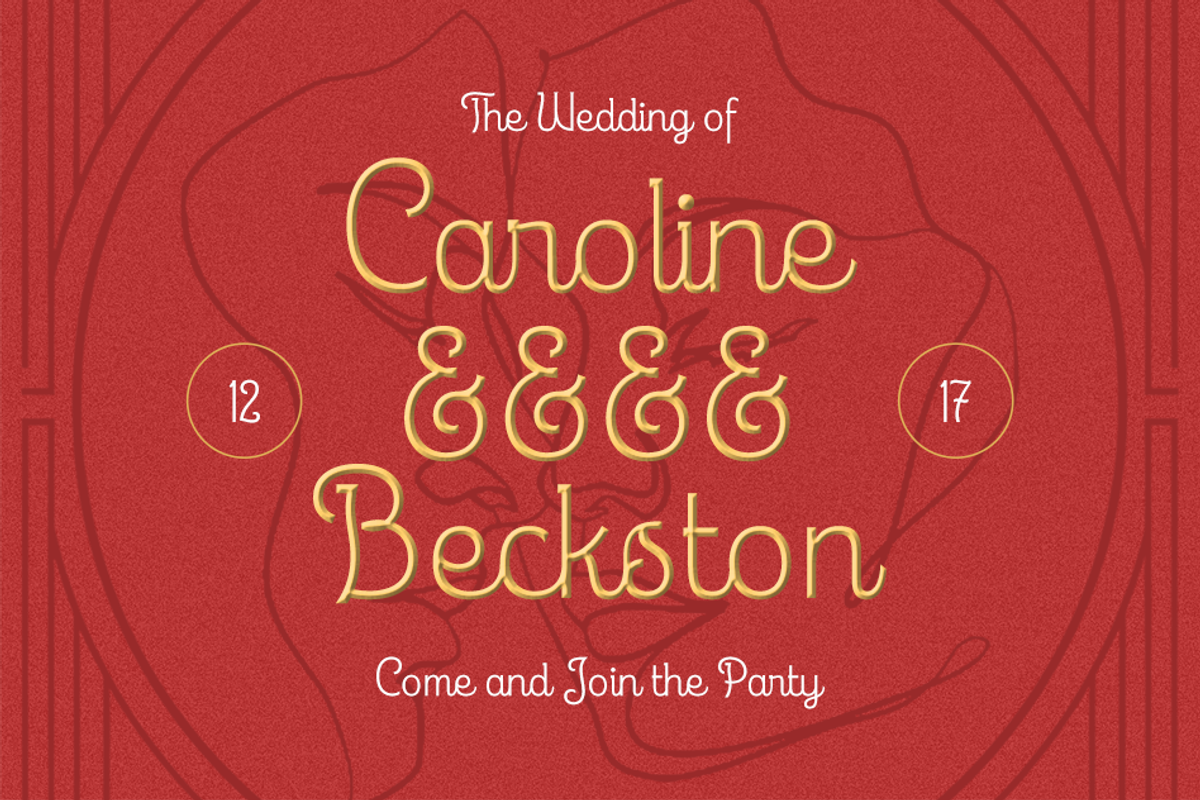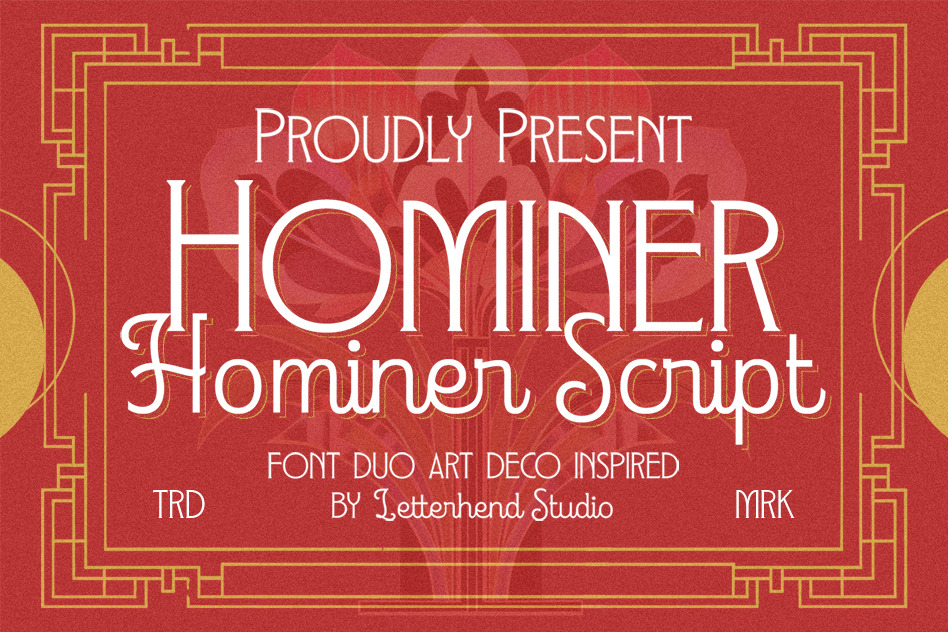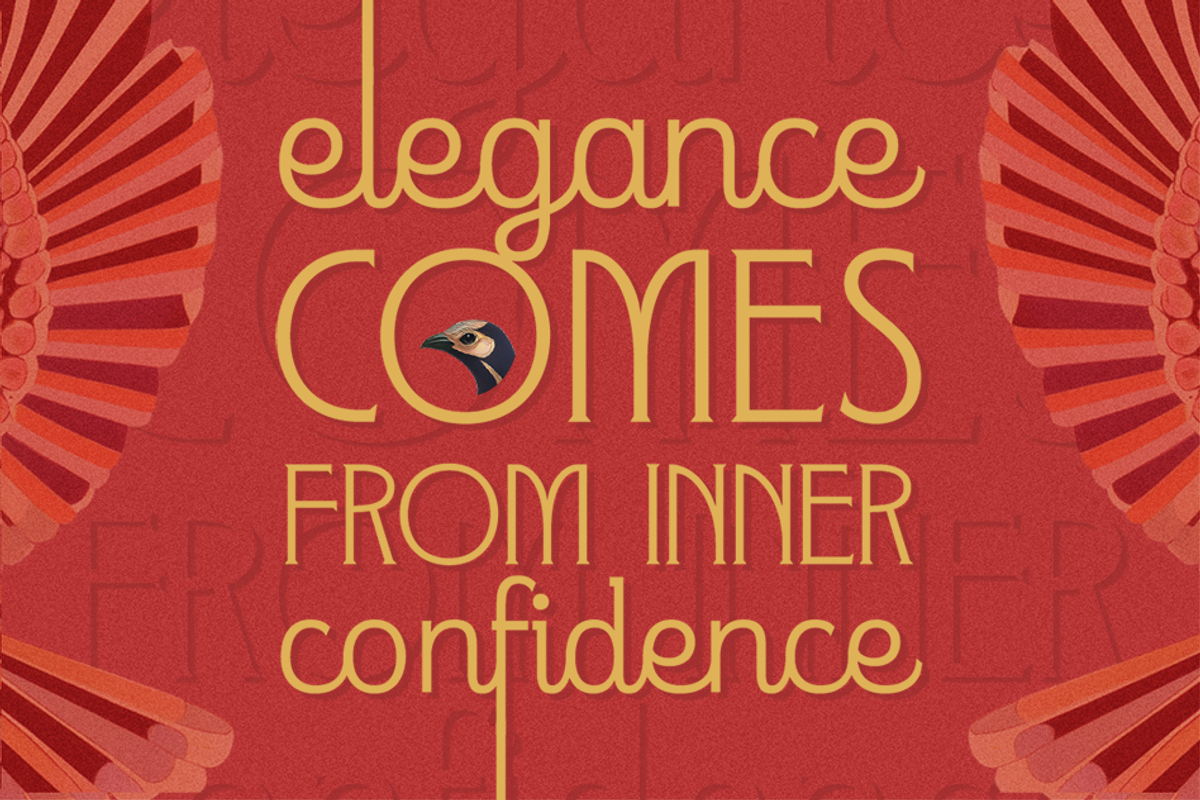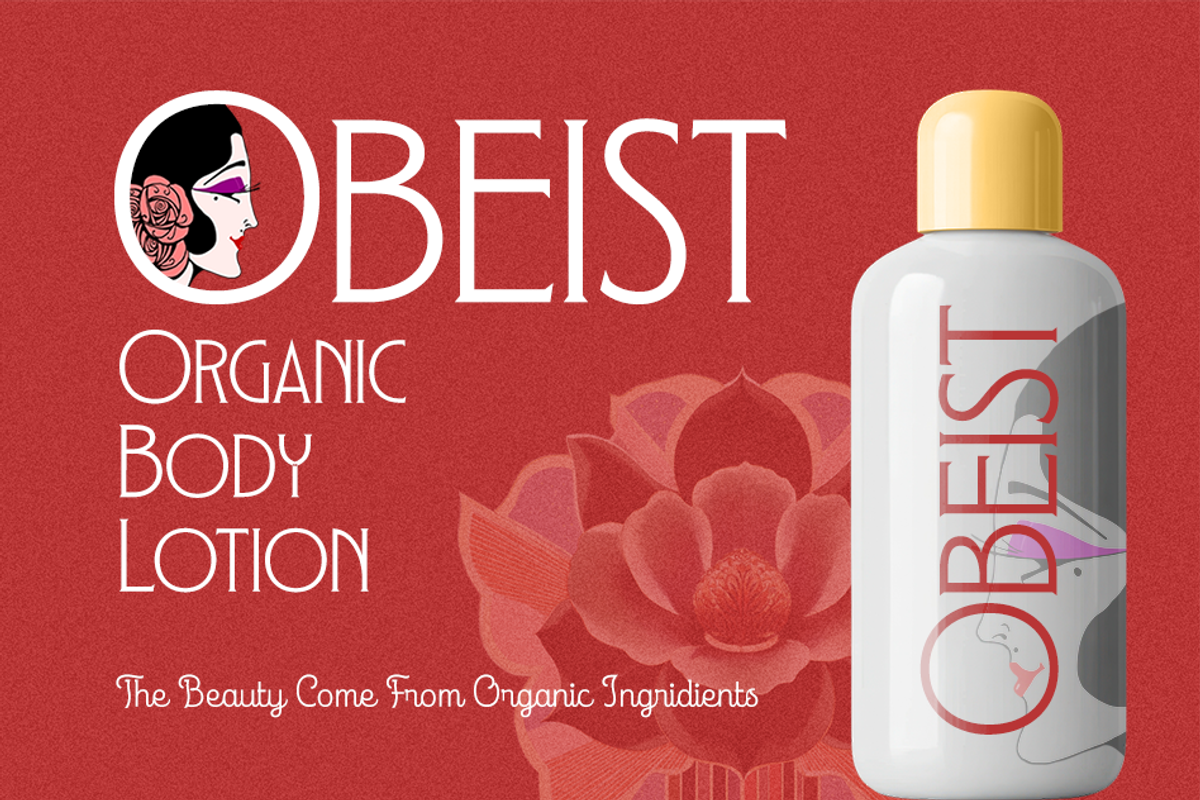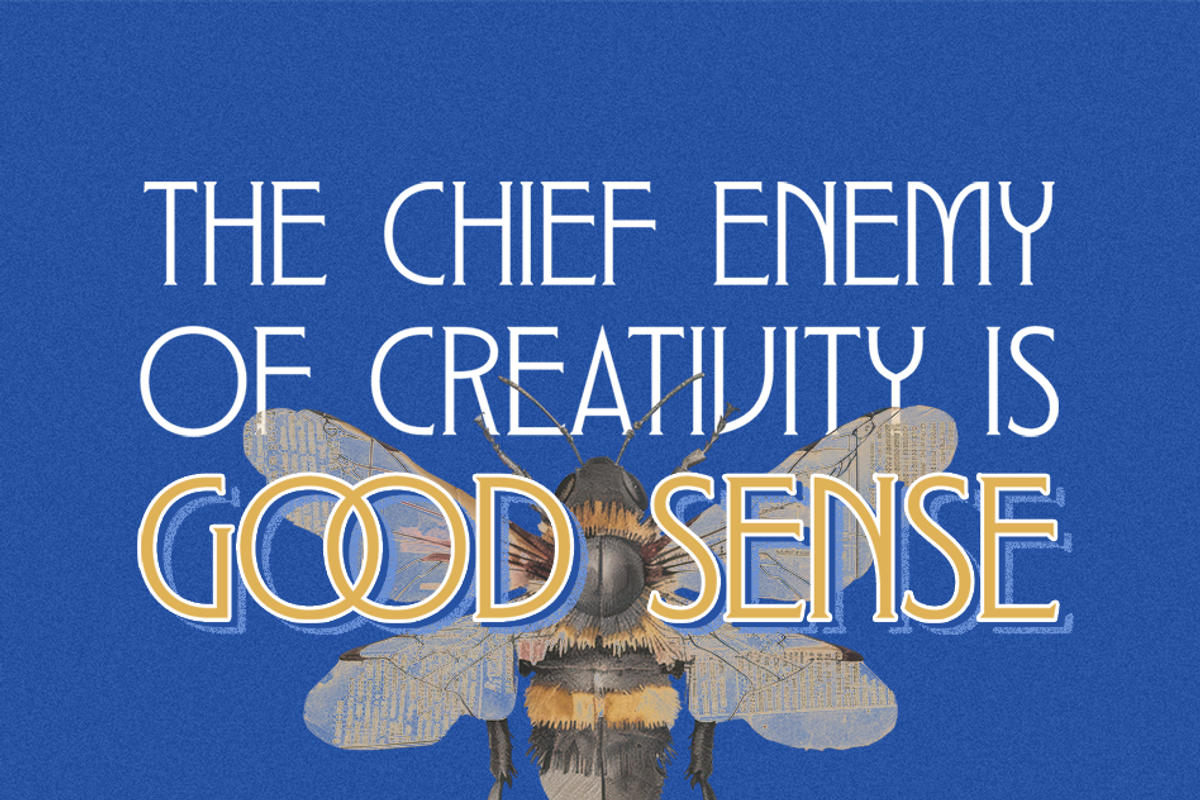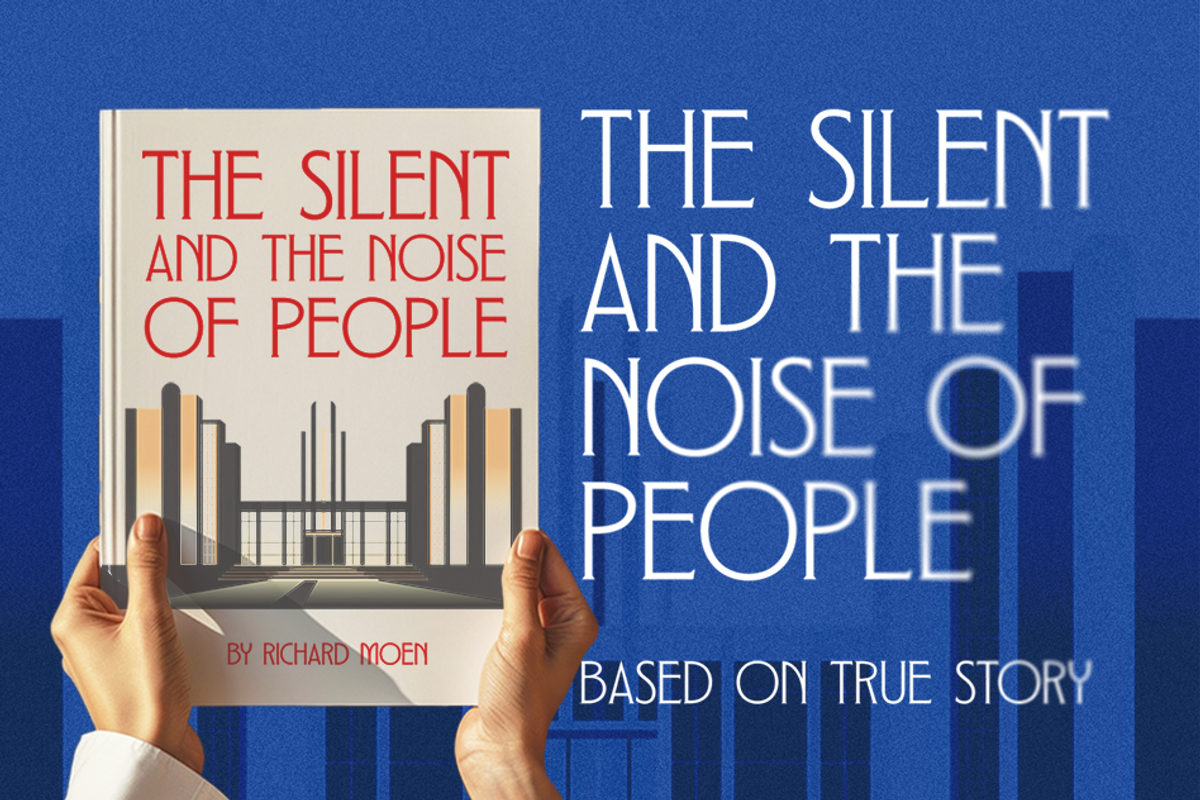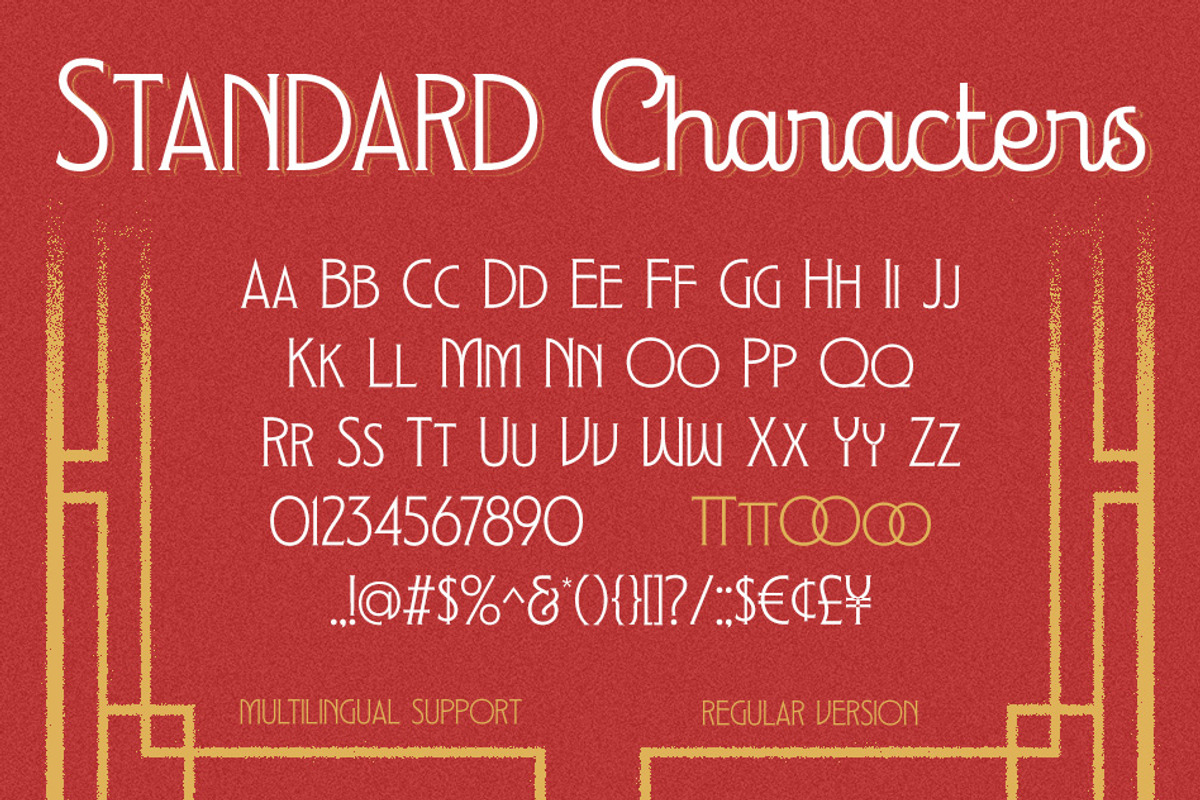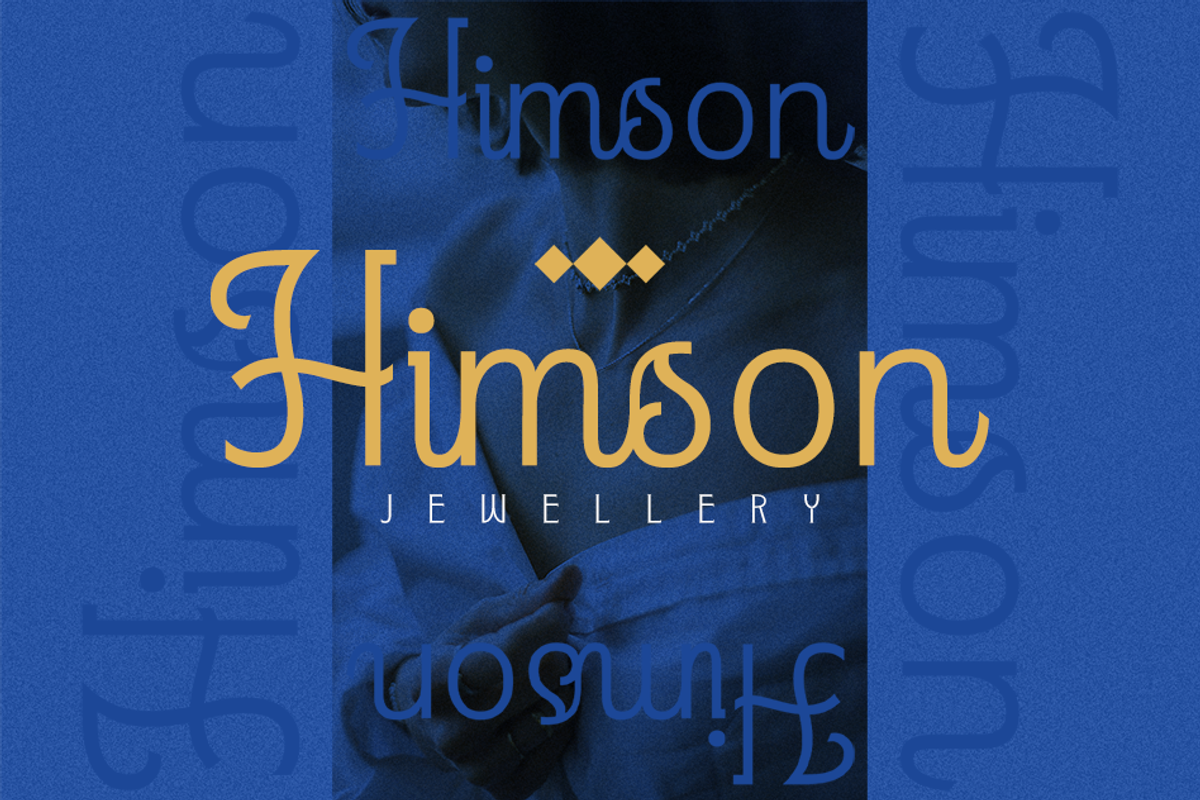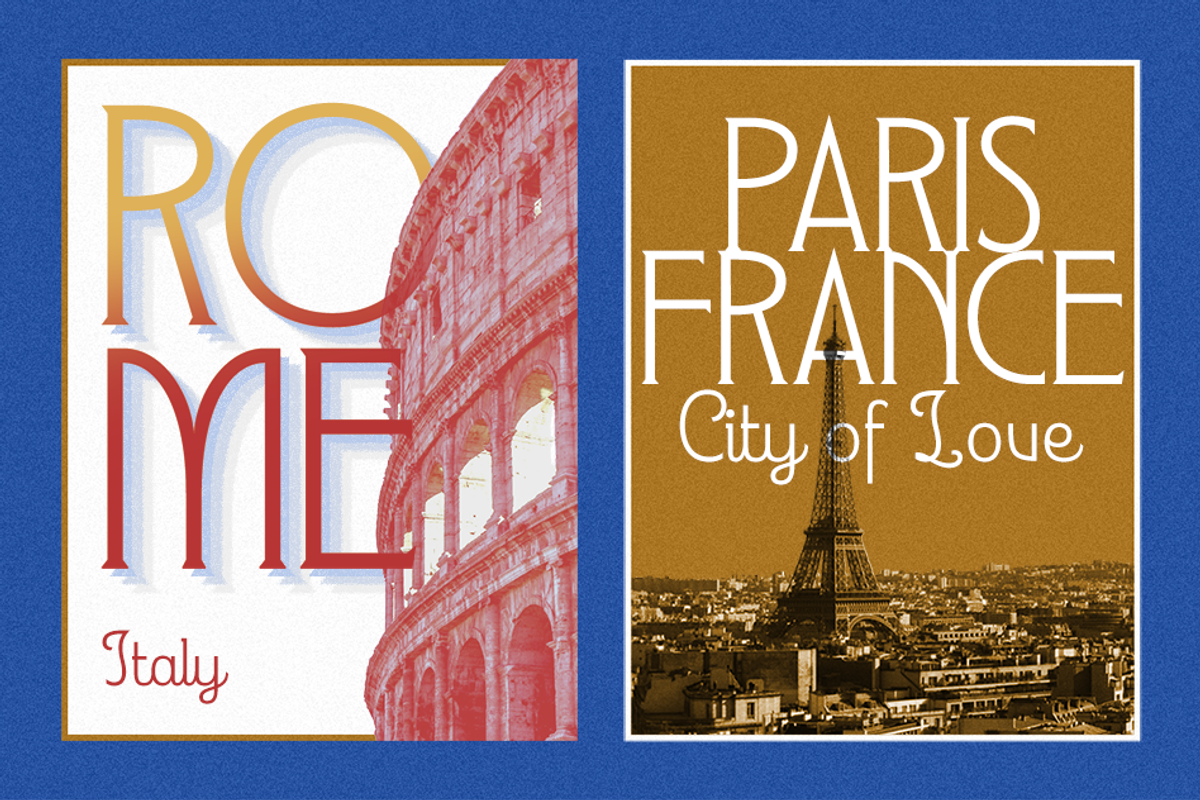
Hominer Art Deco Font
Hominer is a stylish font duo inspired by classic Art Deco aesthetics, featuring a tall, elegant serif and a charming retro script. This combination brings vintage sophistication and playful flair, making it perfect for branding, posters, editorial designs, or any project that seeks a glamorous and nostalgic feel. Designed by Letterhend Studio, Hominer delivers both structure and softness in one timeless package.